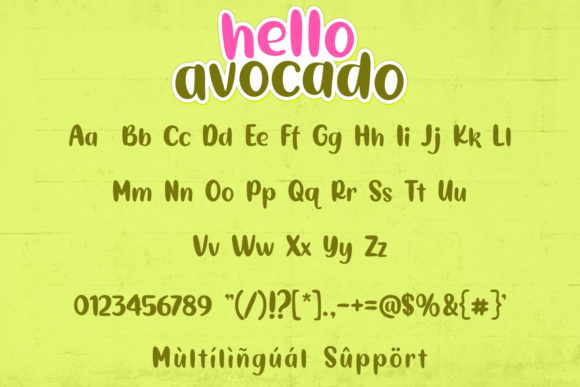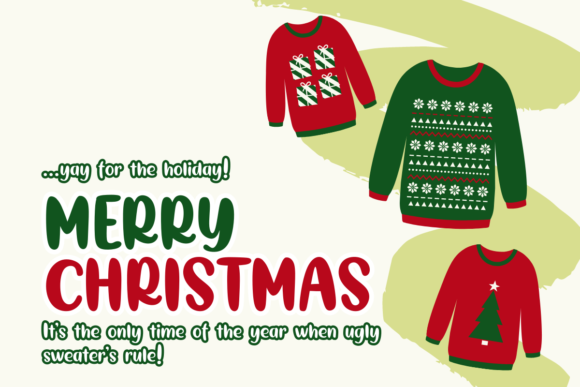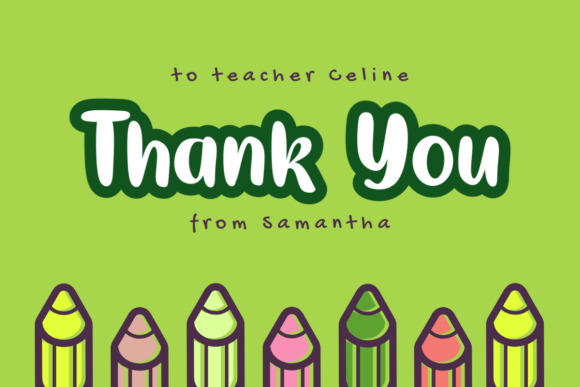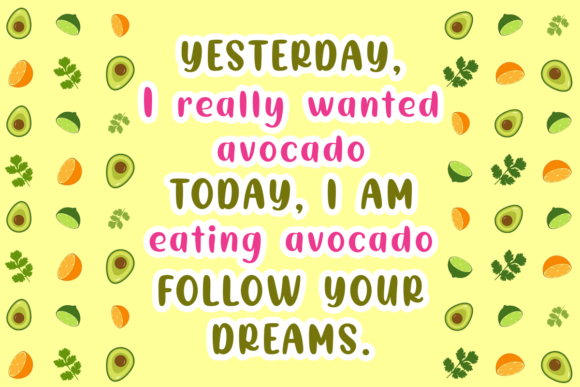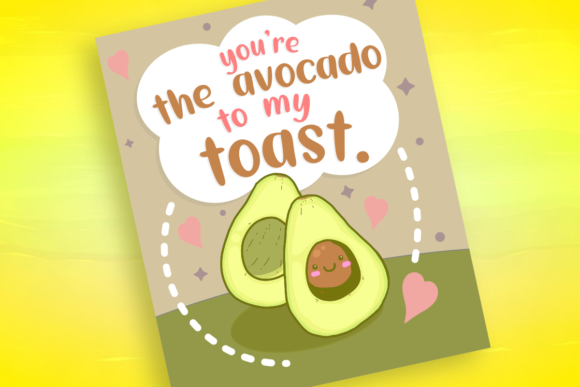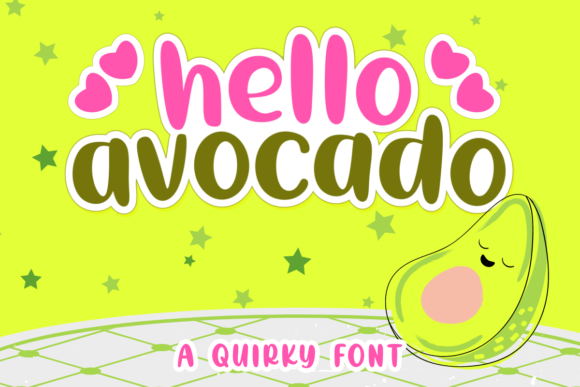
Hello Avocado Font: The Bold and Cute Display Font You Need
Hello Avocado is a bold and cute display font that has taken the design world by storm. With its quirky and playful vibe, this font is perfect for designers and crafters looking to add a touch of personality to their projects. In this article, we’ll dive into the world of Hello Avocado Font, exploring its features, uses, and benefits.
The Features of Hello Avocado Font
Hello Avocado is a display font that boasts a bold and eye-catching design. Its quirky and irregular shape makes it stand out from more traditional fonts, giving it a unique and playful feel. The font is incredibly versatile, making it suitable for a wide range of contexts, from branding and advertising to packaging and crafting.
One of the key features of Hello Avocado Font is its boldness. The font is designed to make a statement, making it perfect for headlines, titles, and other applications where you want to grab the reader’s attention. Despite its boldness, the font remains surprisingly legible, making it easy to read and understand.
The Uses of Hello Avocado Font
Hello Avocado Font is a versatile font that can be used in a variety of contexts. Here are some of the most popular uses for this font:
- Branding and Advertising: Hello Avocado Font is perfect for creating eye-catching logos, advertisements, and marketing materials. Its bold and playful design makes it ideal for grabbing the attention of potential customers.
- Crafting and DIY: Crafters and DIY enthusiasts love Hello Avocado Font for its fun and quirky vibe. The font is perfect for creating handmade cards, gift tags, and other craft projects.
- Packaging: Hello Avocado Font is a popular choice for packaging design, particularly for food and beverage products. Its bold and playful design makes it perfect for standing out on store shelves.
- Social Media: Hello Avocado Font is also popular on social media, particularly for creating eye-catching graphics and posts. Its bold and playful design makes it perfect for grabbing the attention of followers.
The Benefits of Hello Avocado Font
Hello Avocado Font offers a range of benefits for designers and crafters. Here are some of the most significant advantages of using this font:
- Unique and Playful Design: Hello Avocado Font has a unique and playful design that sets it apart from more traditional fonts. Its quirky vibe makes it perfect for adding personality to your projects.
- Versatility: Hello Avocado Font is incredibly versatile, making it suitable for a wide range of contexts. Whether you’re creating branding materials, crafting projects, or social media graphics, this font is a great choice.
- Easy to Read: Despite its boldness, Hello Avocado Font remains surprisingly legible, making it easy to read and understand.
- Time-Saving: Hello Avocado Font is a pre-designed font that can save you time and effort. Rather than spending hours designing a font from scratch, you can use Hello Avocado Font to get the job done quickly and efficiently.
Tips for Using Hello Avocado Font
Here are some tips for using Hello Avocado Font effectively:
- Use it Boldly: Hello Avocado Font is designed to be bold and eye-catching, so don’t be afraid to use it in large sizes and bold weights.
- Pair it with Other Fonts: Hello Avocado Font pairs well with other fonts, particularly sans-serif fonts. Try pairing it with a clean and simple font to create visual interest.
- Experiment with Colors: Hello Avocado Font looks great in a range of colors, from bright and bold to pastel and soft. Experiment with different colors to find the perfect look for your project.
Hello Avocado Font is a bold and cute display font that’s perfect for designers and crafters looking to add a touch of personality to their projects. With its quirky and playful vibe, this font is suitable for a wide range of contexts, from branding and advertising to packaging and crafting. Whether you’re looking to create eye-catching headlines, unique branding materials, or fun and playful craft projects, Hello Avocado Font is a great choice.